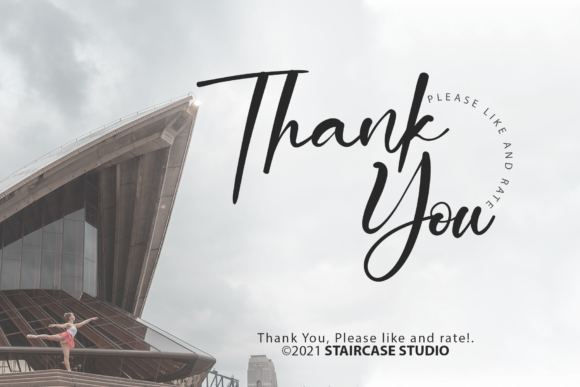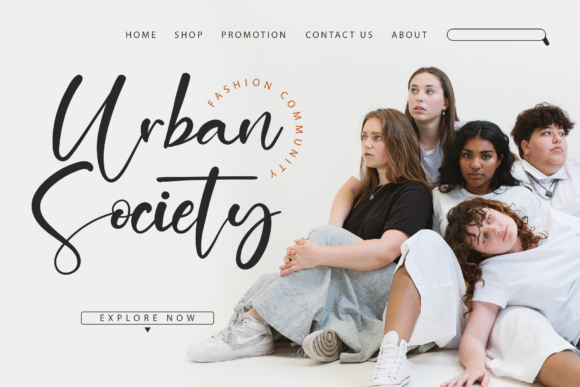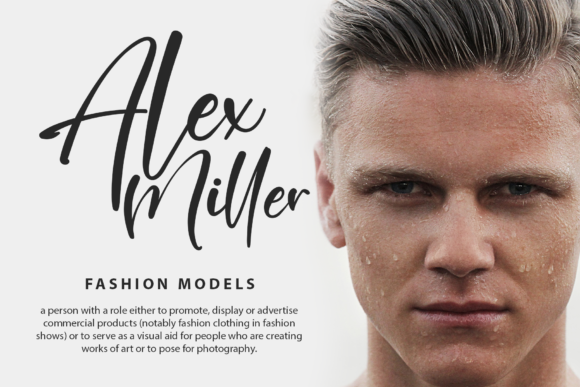
About Australia Font
Australia is a charming handwritten font suitable for your most creative designs and crafty ideas! It has a flowing style and beautifully rounded characters that help you convey any message through your text.